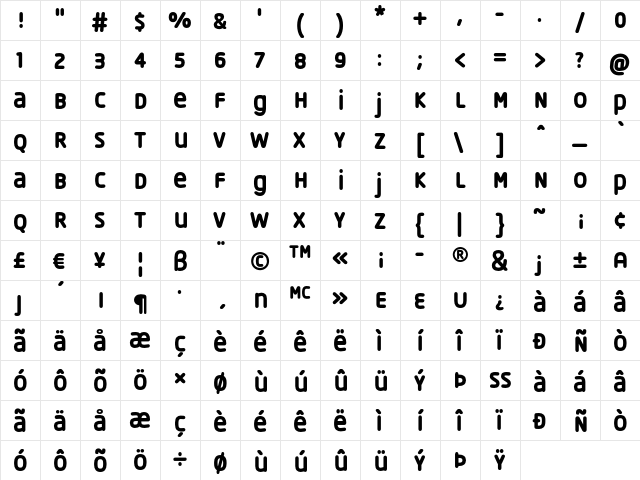
Cryptozoo Regular
| Foundry | VANOC Brand & Creative Services |
| Designer | Leo Obstbaum, VANOC Brand & Creative Services |
Design Context for Cryptozoo Typeface
Cryptozoo is a composed and adaptable typeface that performs quietly and consistently across a wide range of design contexts.